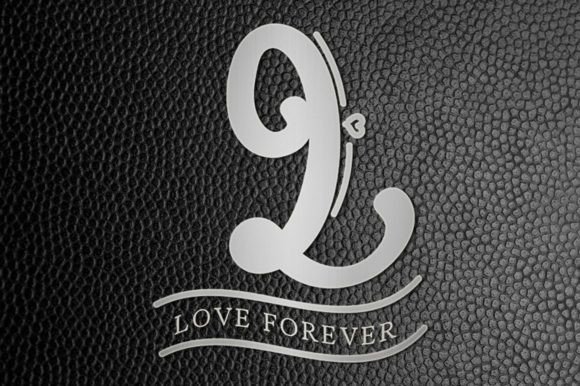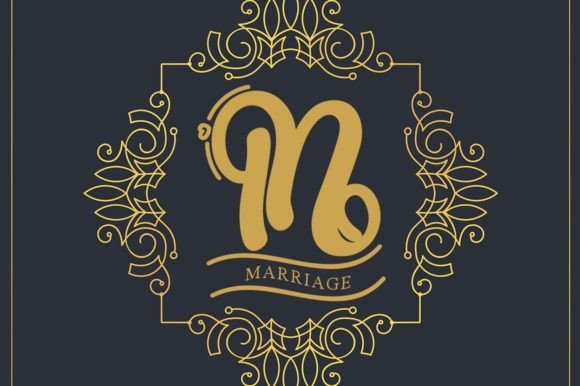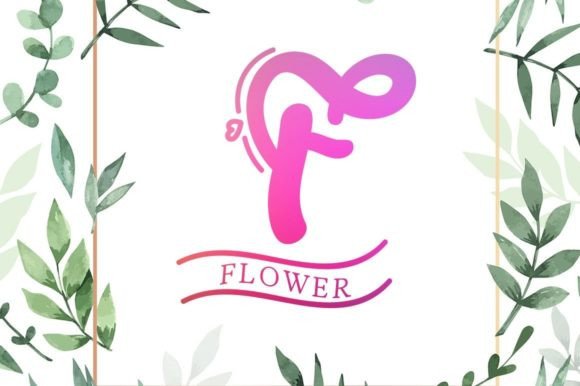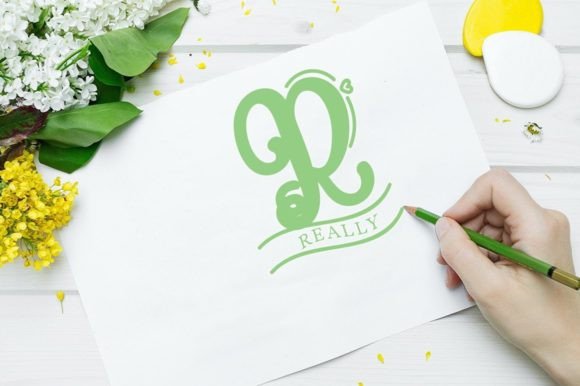
Introducing the Beloved Monogram Font: Elevate Your Designs with Elegance and Joy
In the world of design, fonts play a crucial role in conveying the tone and personality of a brand or project. Among the numerous fonts available, the Beloved Monogram font stands out for its unique blend of freshness, cleanliness, and elegance. This beautiful and sweet font is designed to simplify your design process while adding a touch of joy to your creations. Whether you’re working on formal or informal projects, the Beloved Monogram font is sure to make your designs look amazing.
The Characteristics of Beloved Monogram Font
The Beloved Monogram font boasts several characteristics that make it a versatile and attractive choice for designers and crafters. Some of its key features include:
- Fresh and Clean: The font’s modern and minimalist design ensures that it looks crisp and clean, making it perfect for projects that require a contemporary feel.
- Elegant: The Beloved Monogram font exudes elegance, making it suitable for formal projects, such as luxury brand designs, wedding invitations, and high-end product packaging.
- Versatile: This font can be used in a wide range of projects, from digital designs, such as social media graphics and website headers, to print materials, like brochures, posters, and business cards.
How Beloved Monogram Font Can Elevate Your Designs
By incorporating the Beloved Monogram font into your designs, you can instantly elevate your brand’s visual identity and create a lasting impression on your audience. Here are some ways this font can enhance your designs:
- Adds a Joyful Touch: The Beloved Monogram font has a playful and cheerful vibe that can add a touch of joy to your designs, making them more engaging and memorable.
- Simplifies Design: The font’s clean and elegant design makes it easy to use and pair with other design elements, simplifying your design process and saving you time.
- Enhances Brand Image: By using the Beloved Monogram font, your business can project a more beautiful and professional image, helping you to establish a strong brand presence.
The Beloved Monogram font is an excellent choice for designers and crafters who want to create stunning visuals without spending hours on font selection and design. This font is perfect for:
- Graphic Designers: The Beloved Monogram font can be used in a variety of graphic design projects, such as logo designs, social media graphics, and website headers.
- Crafters: Crafters can use this font to create beautiful and professional-looking crafts, such as handmade cards, invitations, and DIY projects.
- Small Business Owners: Small business owners can use the Beloved Monogram font to create a consistent brand image across all their marketing materials.
In conclusion, the Beloved Monogram font is a versatile and beautiful font that can elevate your designs and add a touch of joy to your brand’s visual identity. Its fresh, clean, and elegant design makes it perfect for a wide range of projects, from formal to informal. Whether you’re a designer, crafter, or small business owner, the Beloved Monogram font is an excellent choice for simplifying your design process and creating stunning visuals.